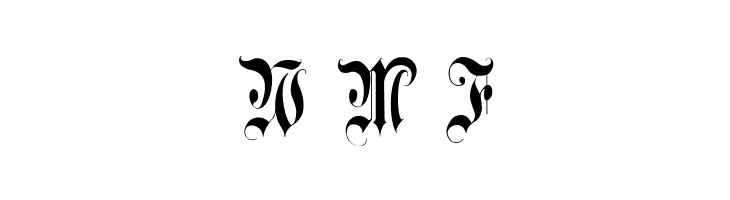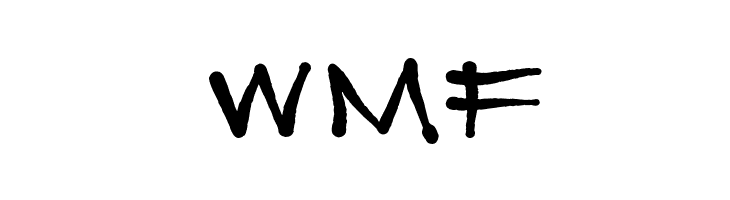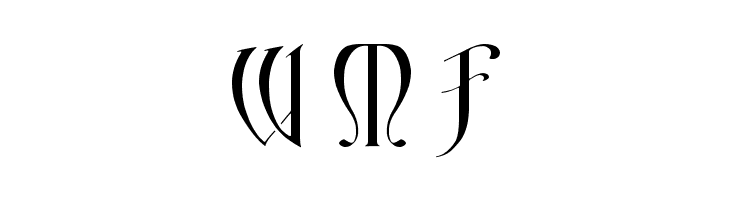
A geometric, angular font with a futuristic and edgy design.
A bold, angular font with sharp edges and geometric shapes, ideal for modern designs.
An ornate and elegant font with intricate detailing and a classic calligraphic style.
A bold, graffiti-inspired font with dynamic and expressive strokes.
A bold, graffiti-inspired font with an urban, rebellious style.
A clean, structured serif font with medium contrast and excellent readability.
A decorative font with calligraphic and gothic influences, featuring elegant flourishes.
A bold, monospaced font with a clean, modern design and medium contrast.
A clean, modern monospaced typeface with consistent stroke width.